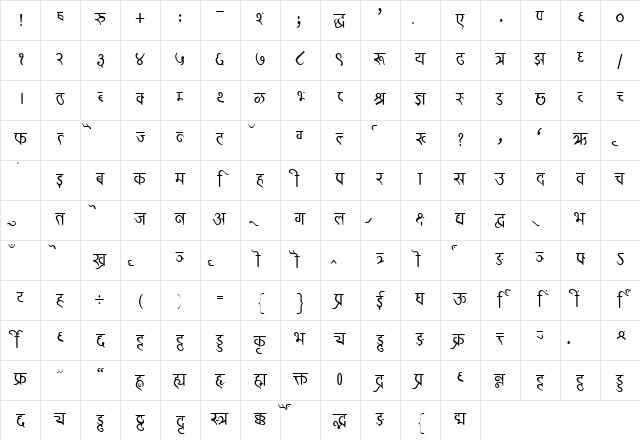
Kruti Dev 326 Thin
Design Context for Kruti Dev 326
Kruti Dev 326 is a composed and adaptable typeface that performs quietly and consistently across a wide range of design contexts. Its slender proportions lend an understated elegance to any composition.